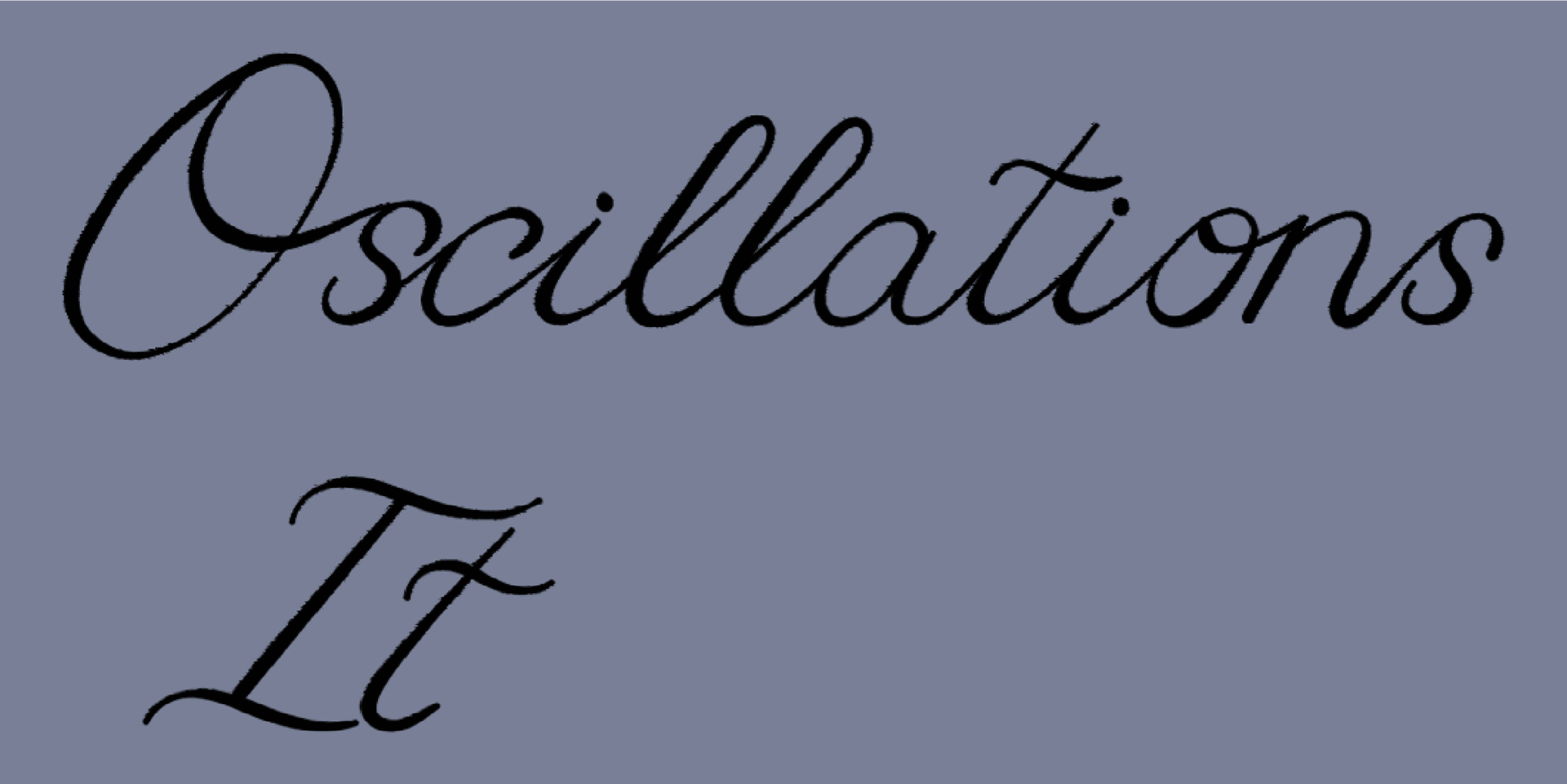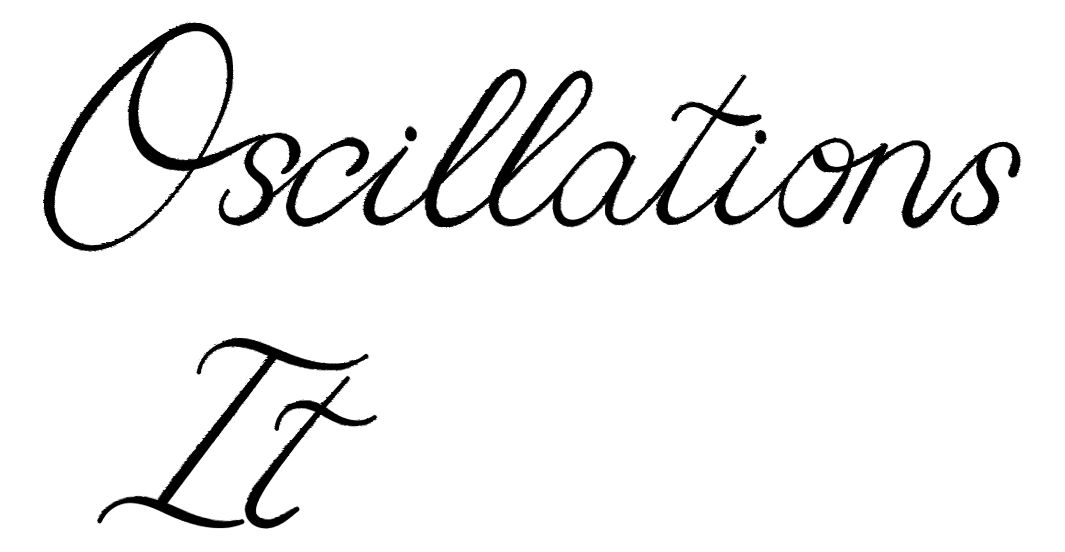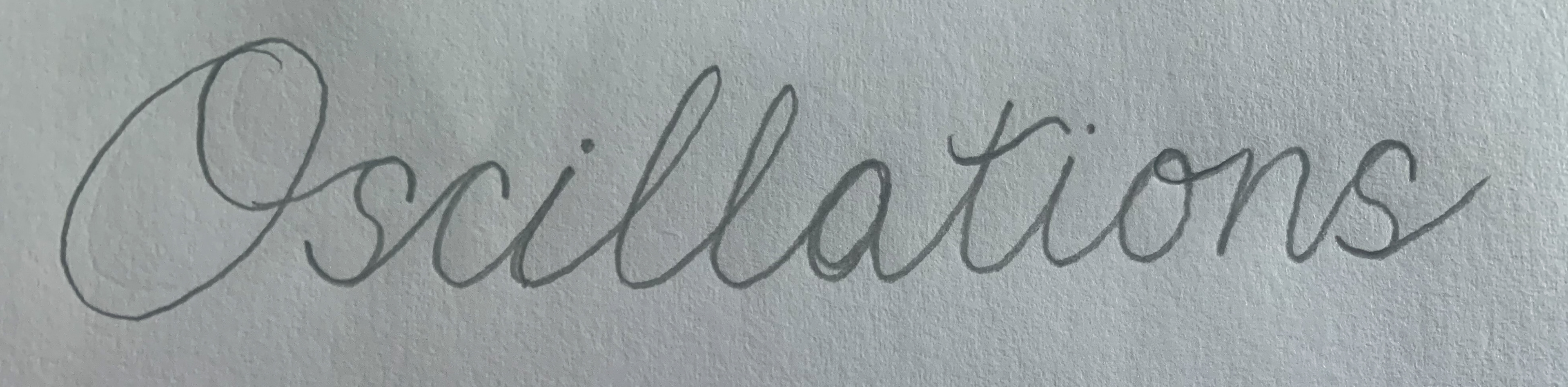
First pencil sketch of title
Oscillations, story title and letterhead
Oscillations, a hand lettered short story title and letterhead for Aria K.C.'s book 'Micronised'. A cursive hand lettered title with bleeding effect to look like ink on paper. Accompanying artwork on left page by Samuel Bloomer.